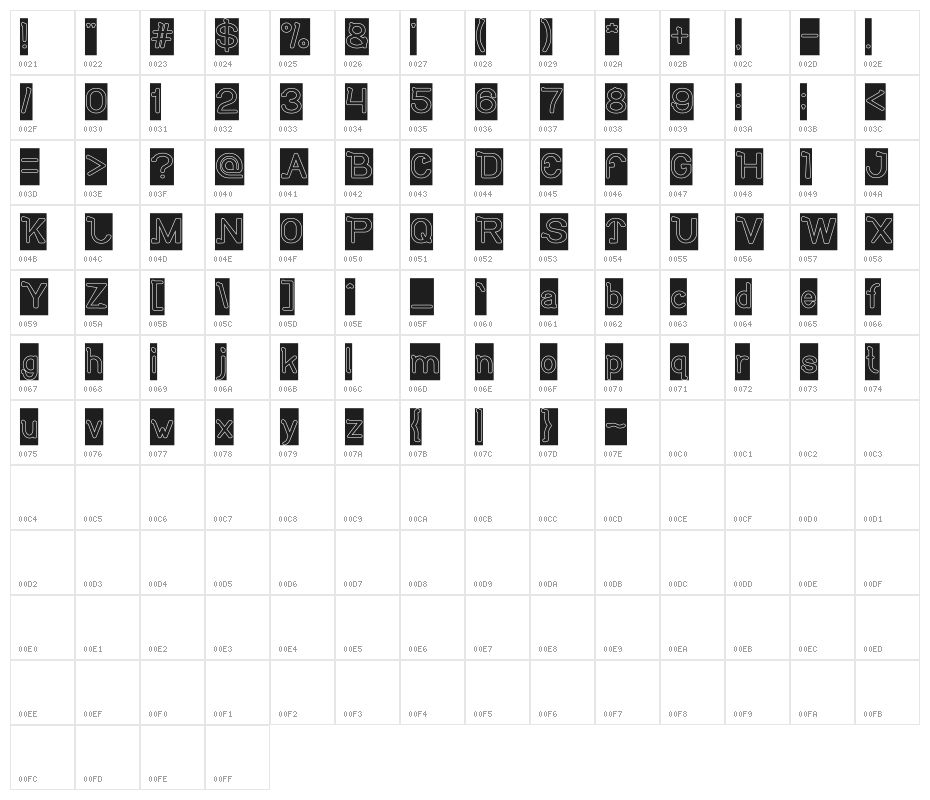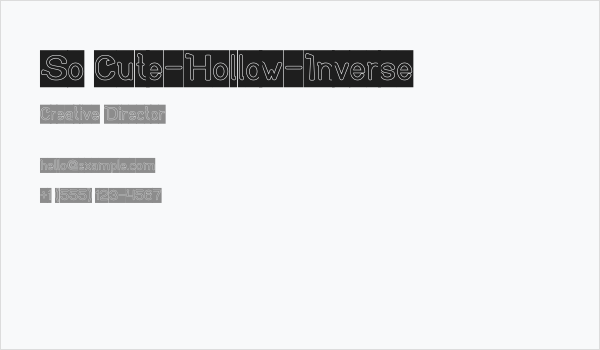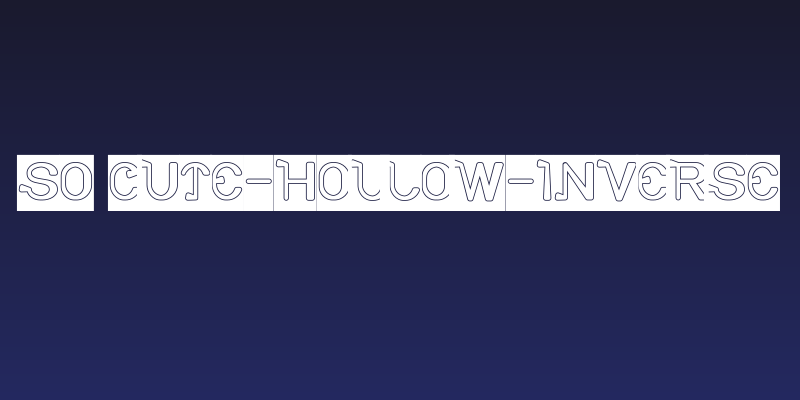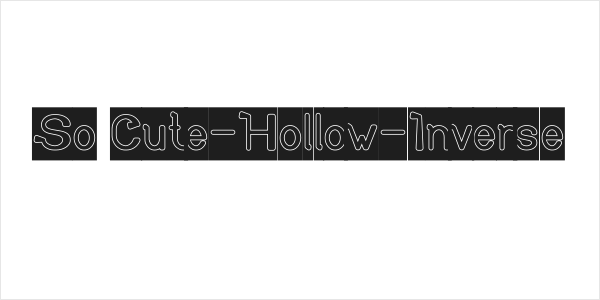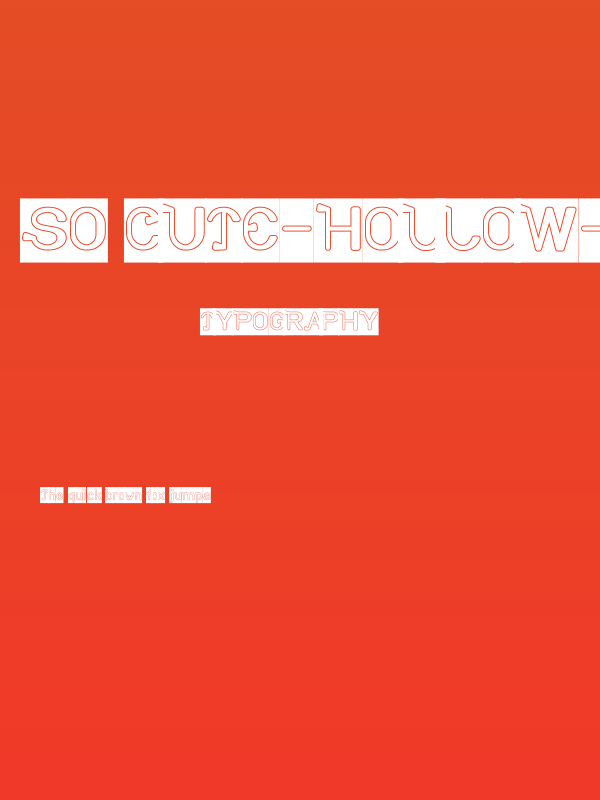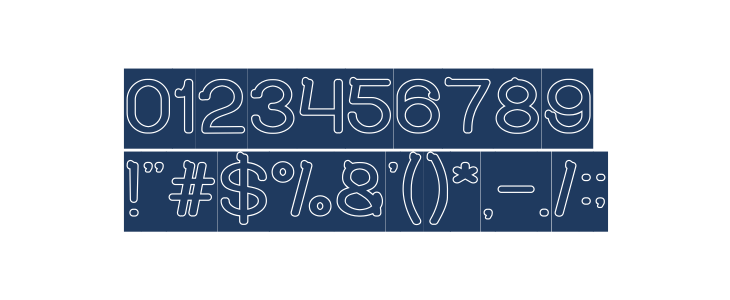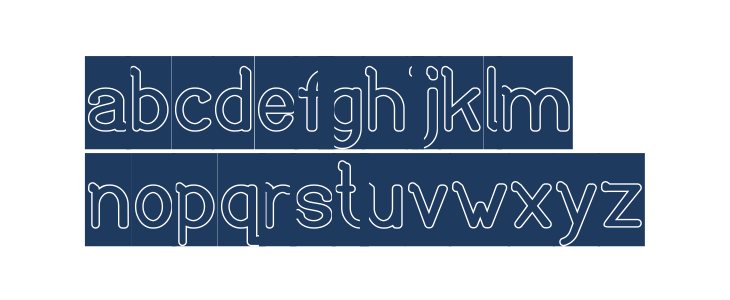
So Cute-Hollow-Inverse Font
So Cute-Hollow-Inverse Description
This playful and whimsical font features a hollow design with a consistent stroke width, creating a light and airy appearance. The characters are rounded and smooth, giving off a friendly and approachable vibe. The uppercase and lowercase letters maintain a uniform style, with a slight geometric influence that adds a modern touch. The numerals and special characters are crafted to match the overall aesthetic, ensuring a cohesive look across all text. This font's unique hollow style makes it stand out, perfect for designs that require a touch of fun and creativity.
| Overall Style | Modern, Playful |